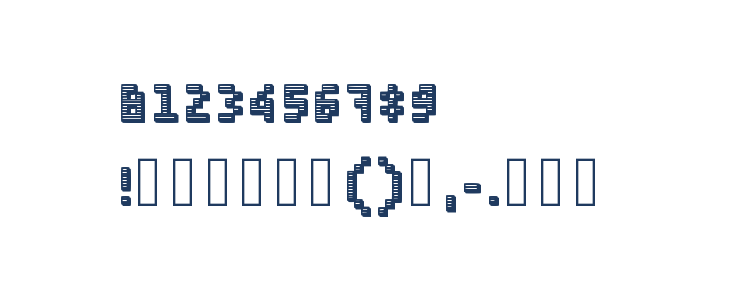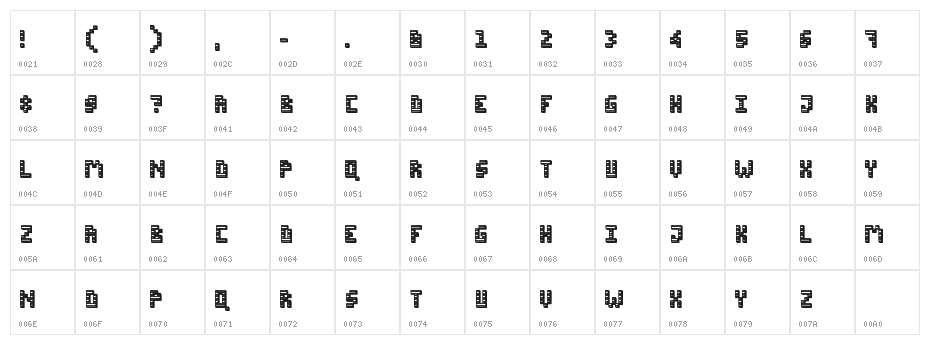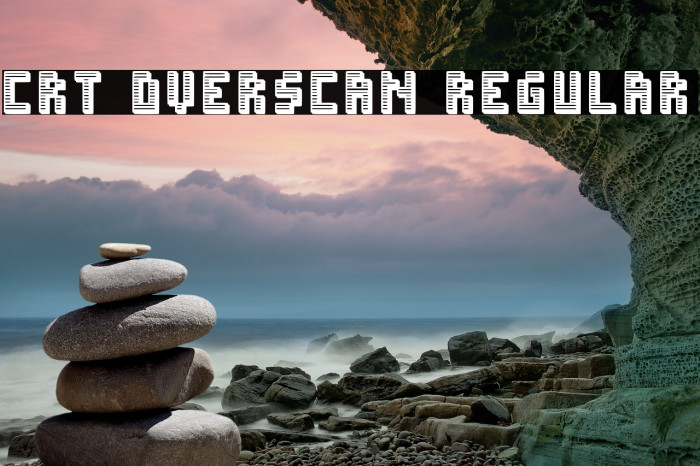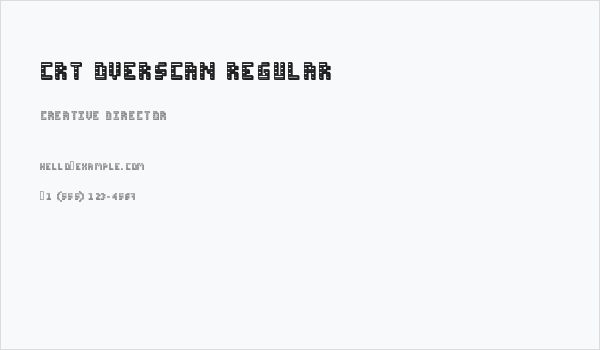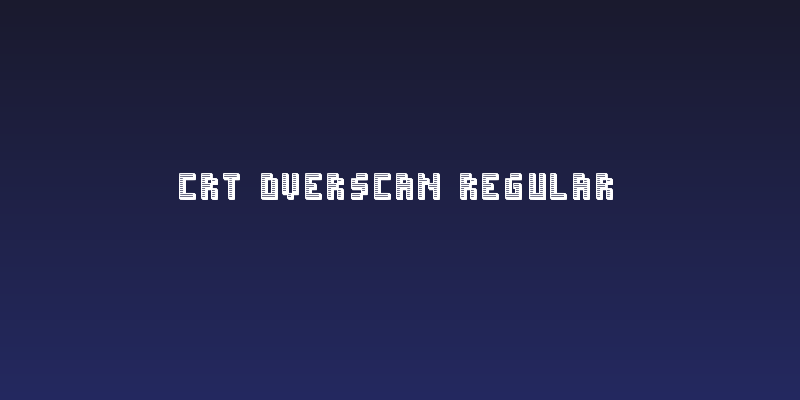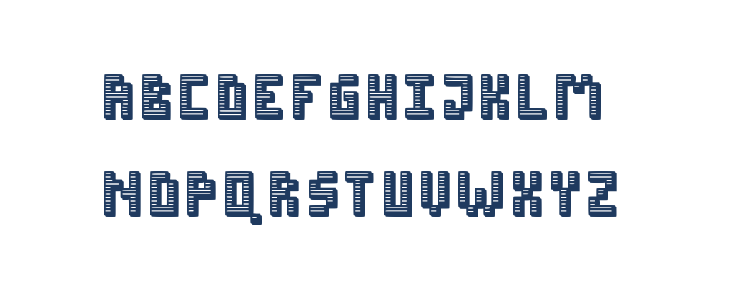
Crt Overscan Regular Font
Crt Overscan Regular Description
This font features a unique, retro-inspired design reminiscent of vintage computer screens and CRT displays. The characters are constructed with a series of horizontal lines, creating a textured, layered appearance. Each letter and number is bold and distinct, with a blocky, geometric shape that enhances its digital aesthetic. The font maintains a consistent width across all characters, contributing to its monospaced feel. Special characters are included, matching the overall style with a pixelated look. This font is ideal for projects that aim to evoke nostalgia or a tech-oriented theme.
| Overall Style | Retro, Digital |
| Use Case | Headlines, Logos, Digital Art |
| Proposed Projects | Ideal for tech-themed designs, retro video game graphics, digital art, and nostalgic branding projects. |